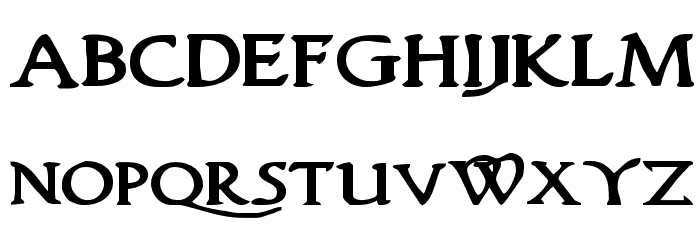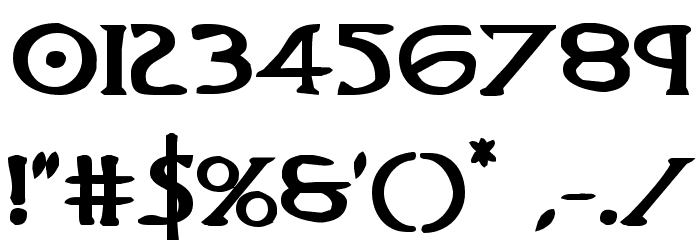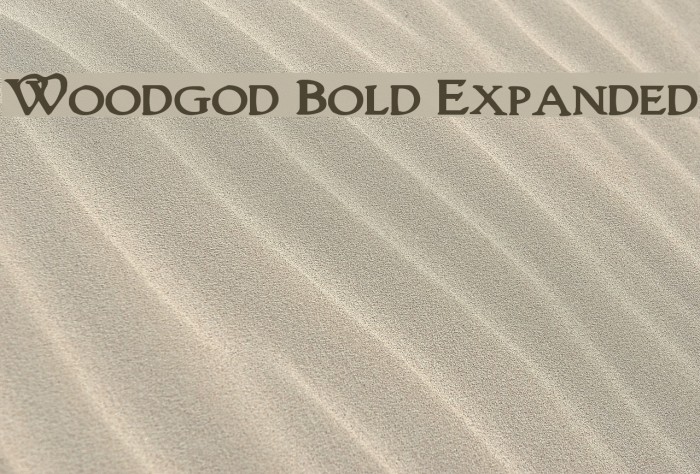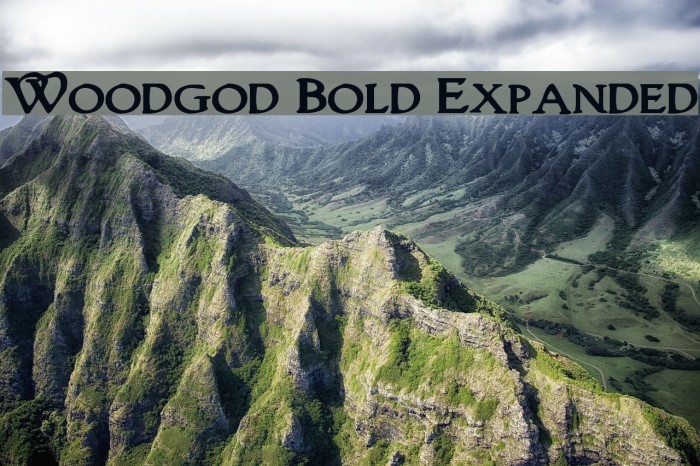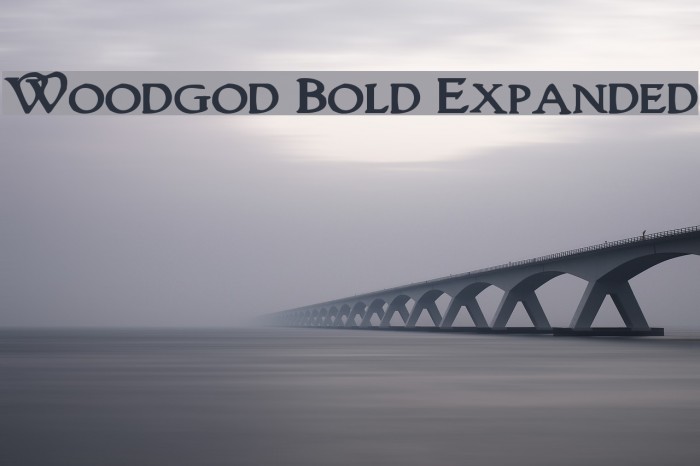
Woodgod Bold Expanded Font
This font features a bold and expanded style with a decorative flair. The uppercase letters are characterized by their strong, thick strokes and unique serifs that add a touch of elegance. The lowercase letters maintain a consistent style, with some characters exhibiting playful curves and swashes, particularly noticeable in letters like 'g' and 'y'. The numbers are bold and easily legible, complementing the overall design. Special characters are creatively designed, adding to the font's decorative appeal. This font is ideal for projects that require a bold and artistic touch.
A bold, expanded decorative font with unique serifs and playful curves.
- Proposed Projects: Ideal for headlines, posters, branding, and any project needing a bold, artistic touch.